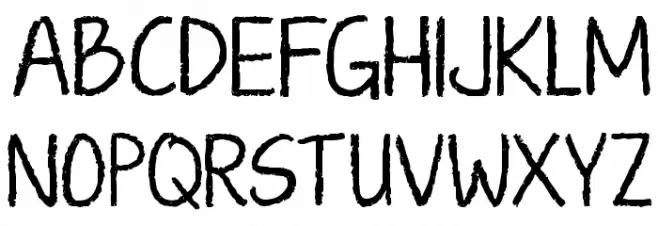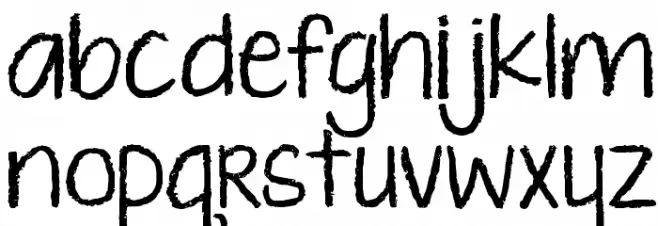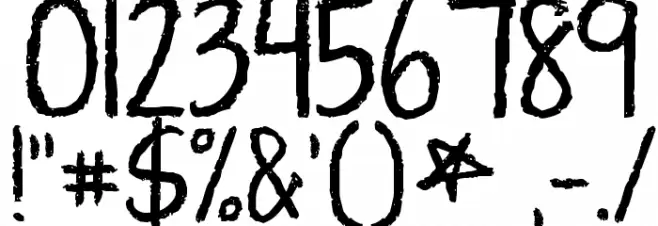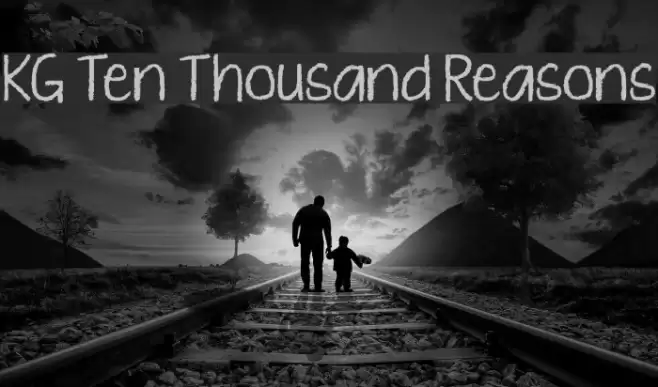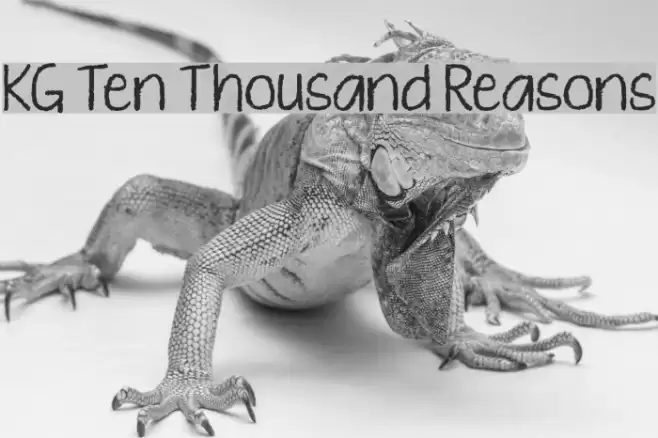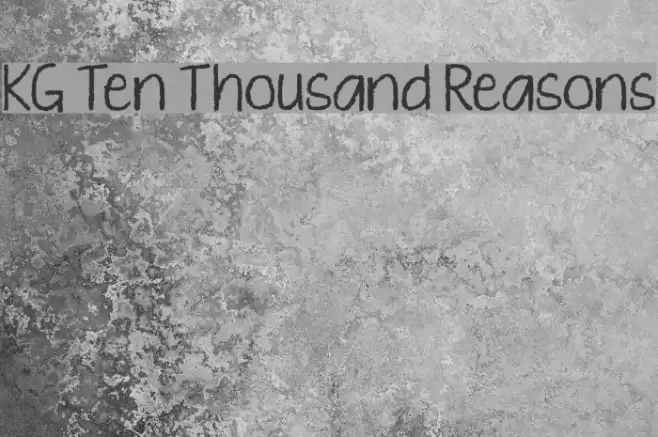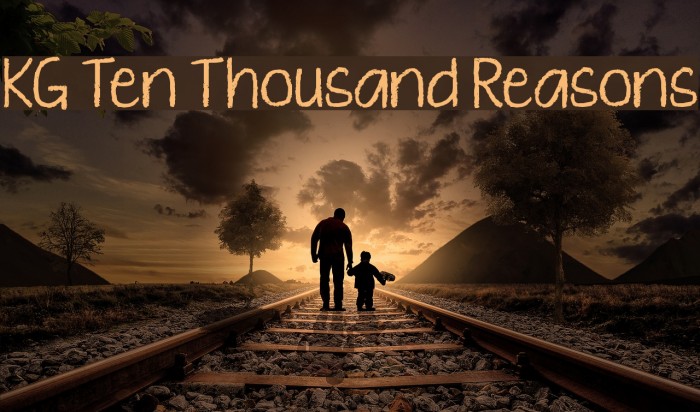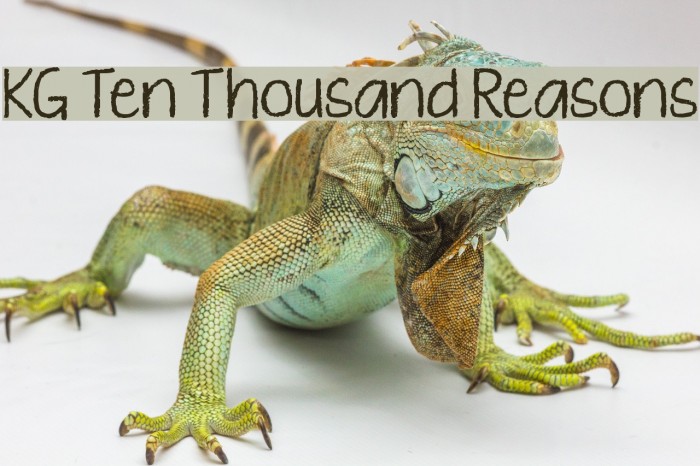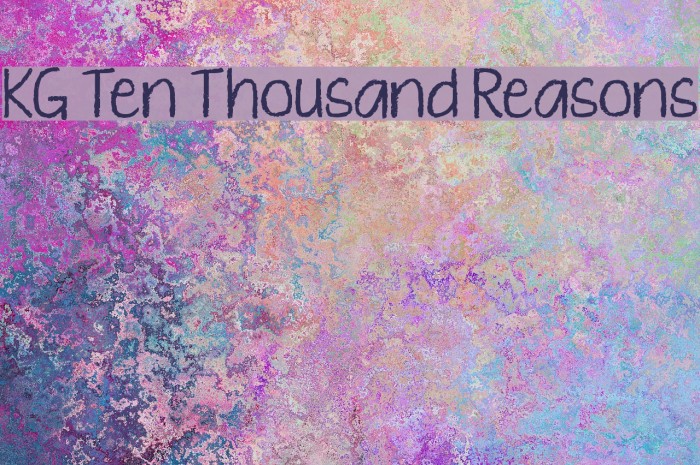
KG Ten Thousand Reasons
This font exhibits a playful and textured style, reminiscent of hand-drawn chalk or crayon strokes. The letters are slightly irregular, adding a casual and informal feel. The uppercase and lowercase characters maintain a consistent style, with rounded edges and a slightly rough texture. Numbers and special characters follow the same design, ensuring a cohesive look across all text elements. This font's unique appearance makes it stand out, providing a sense of creativity and spontaneity.
A playful, hand-drawn style with a textured, chalk-like appearance.
- Proposed Projects: Ideal for children's books, educational materials, playful branding, and creative posters.
- Overall Style: Casual
- Use Case: Headlines, Posters, Creative projects